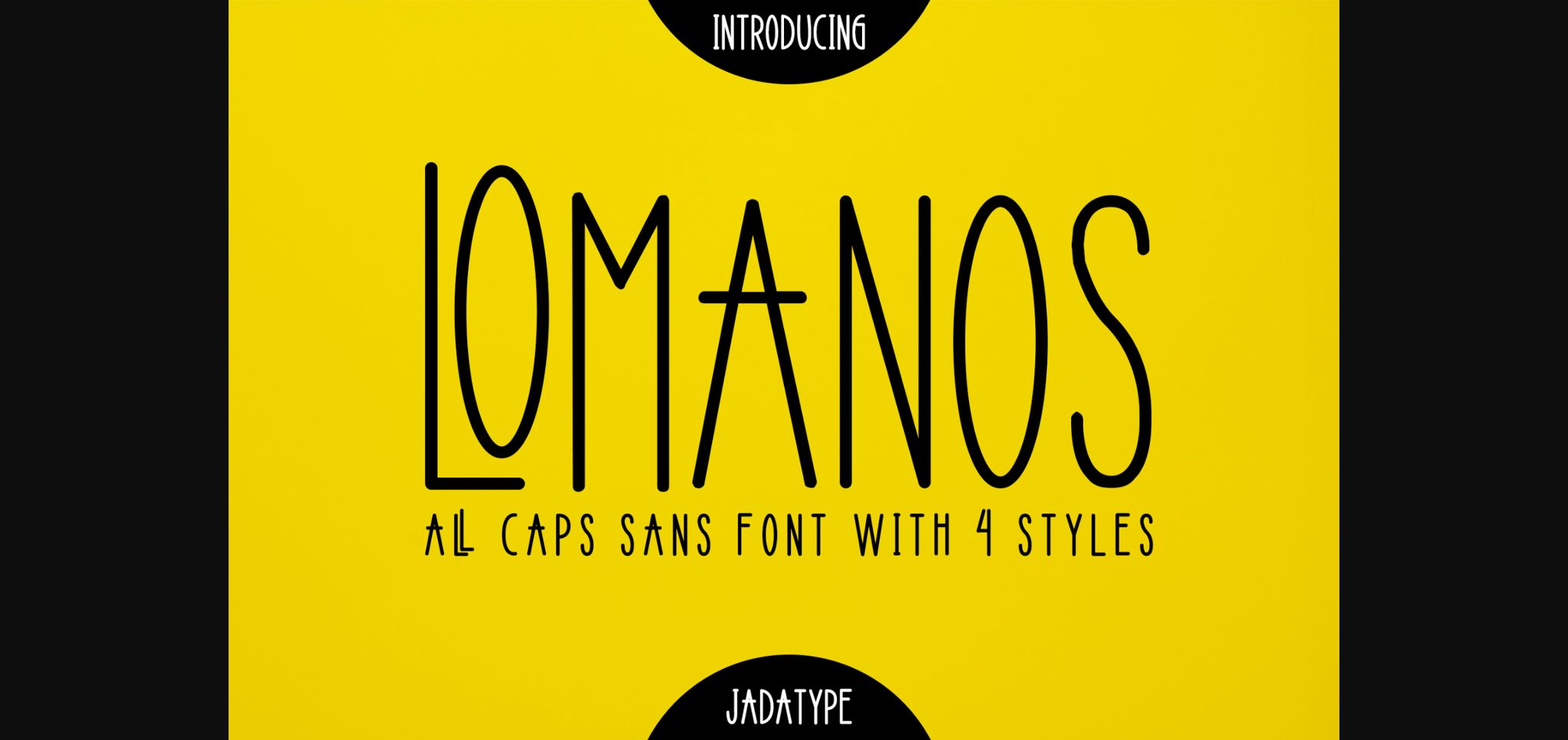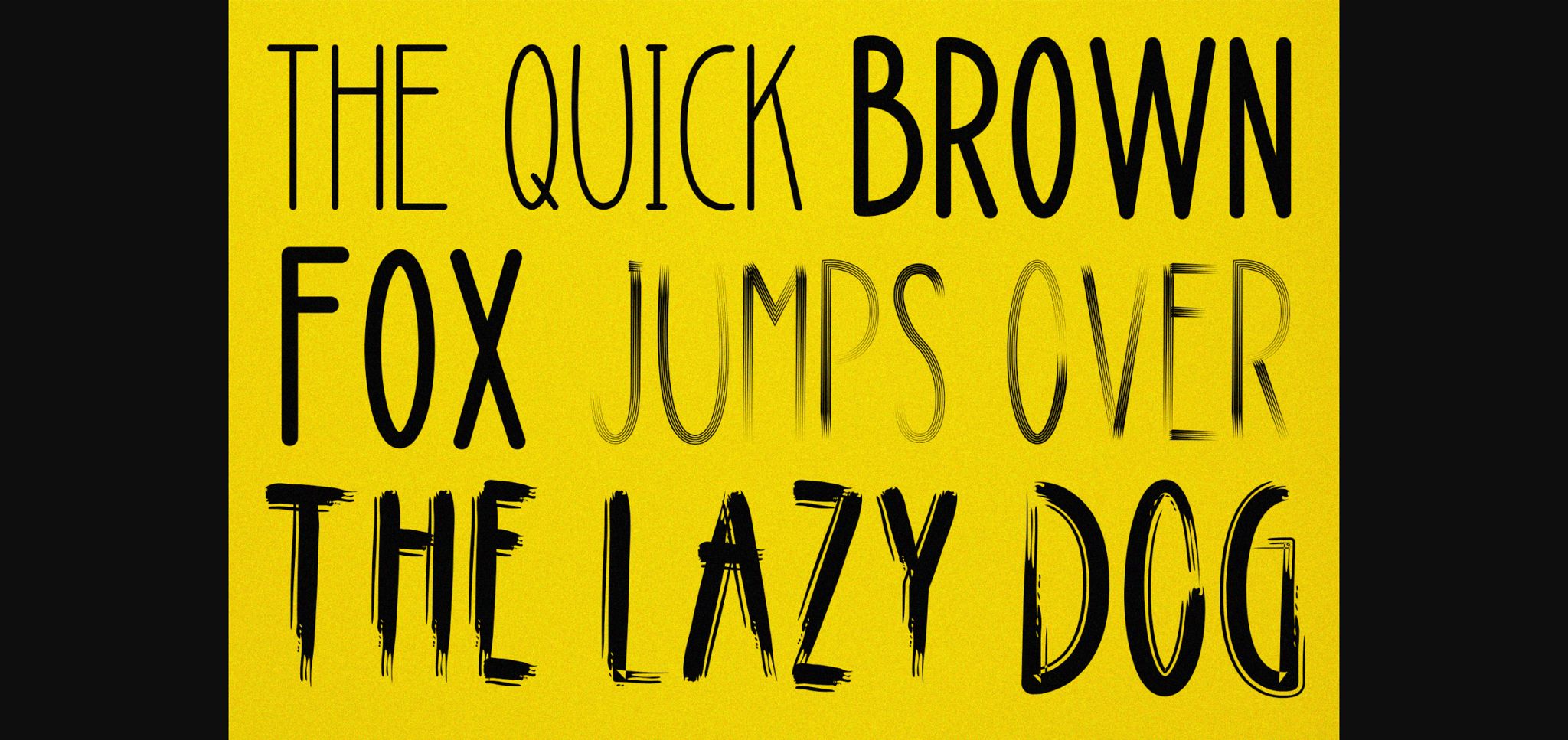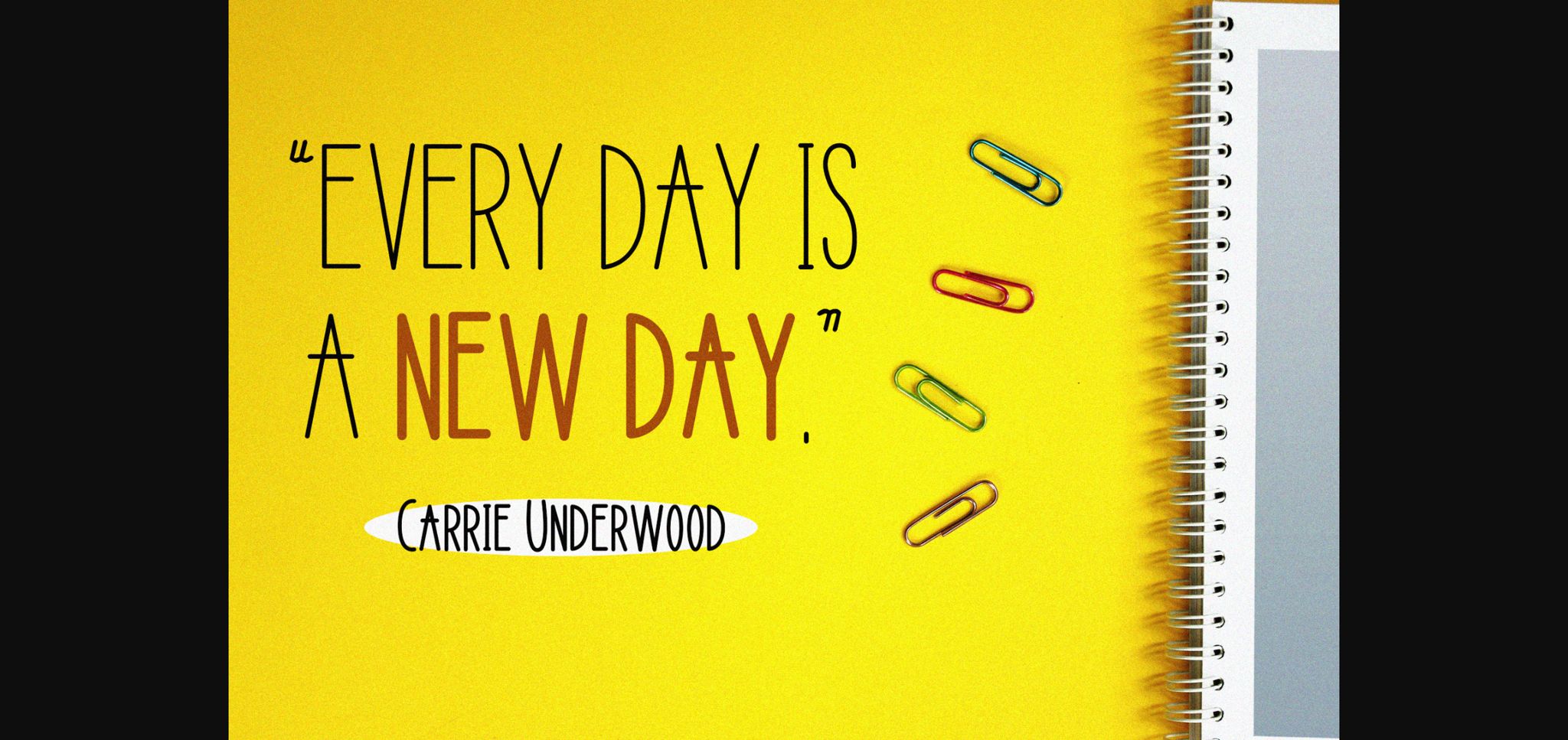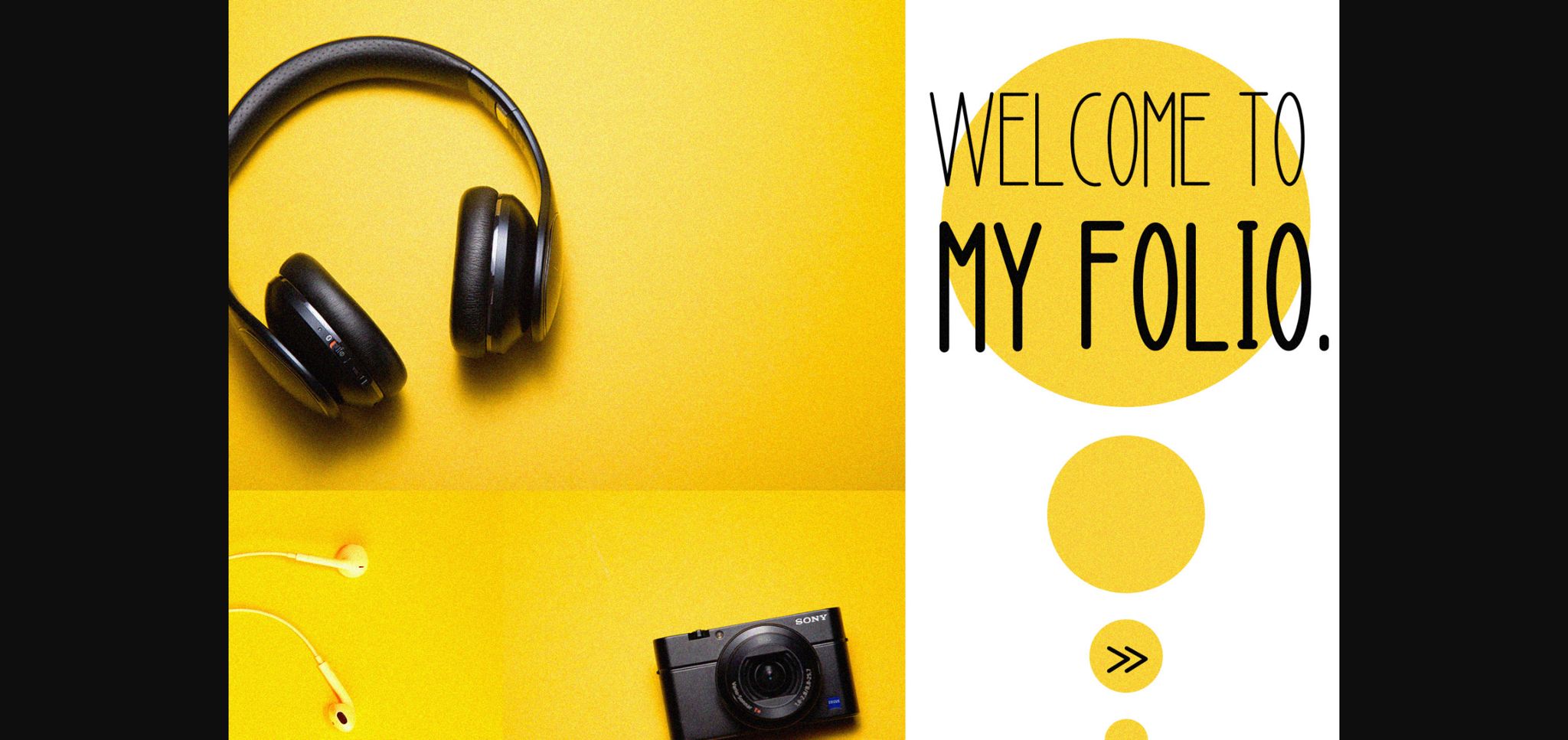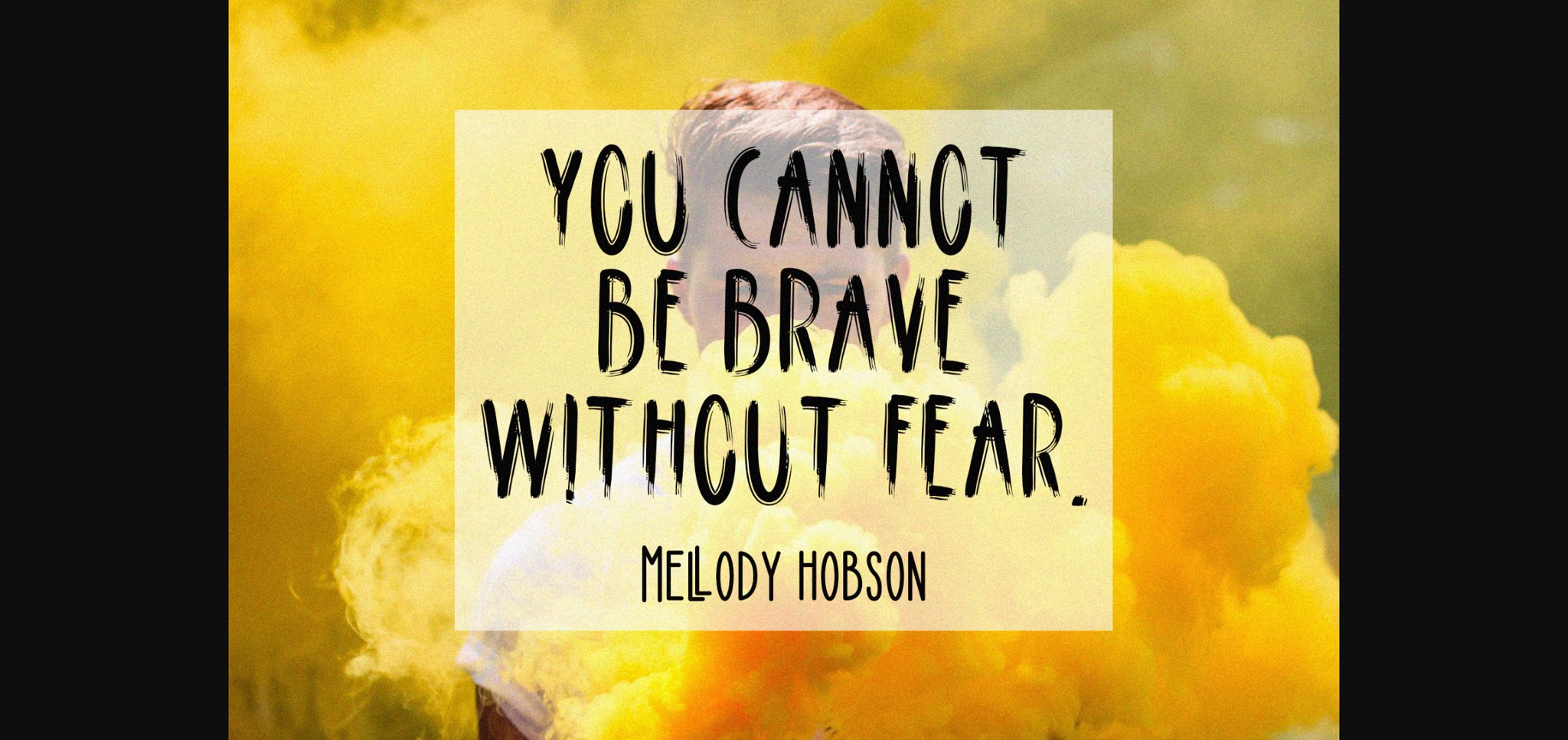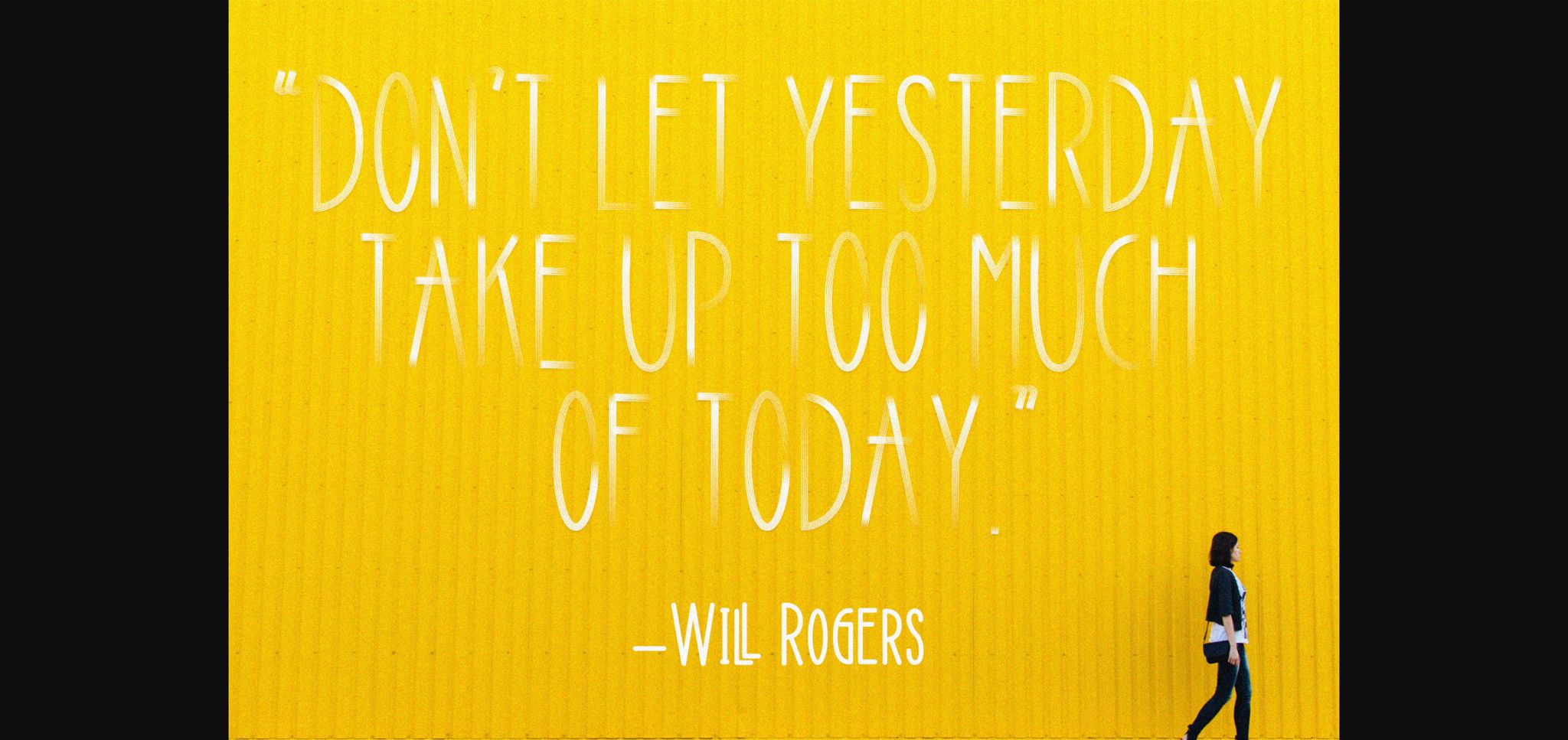
Lomanos Font
About Lomanos Font
Lomanos is a thin lettered sans serif font. No matter the topic, this font will be an incredibly asset to your fonts’ library, as it has the potential to elevate any creation.